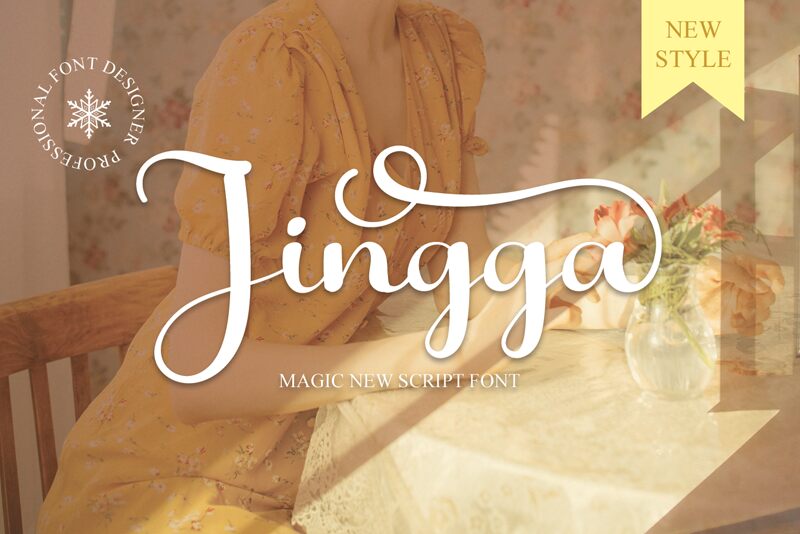
Jingga
Jingga, the latest calligraphic font by Fana Merah Jambu, is a stunning semi-light typeface perfect for a multitude of projects. Its fluid strokes and elegant curves make it ideal for wedding invitations, feminine branding, and luxury product packaging. The playful nature of the font also makes it suitable for children's books or whimsical designs. Let Jingga add an air of sophistication to your next project while captivating your audience with its graceful charm.